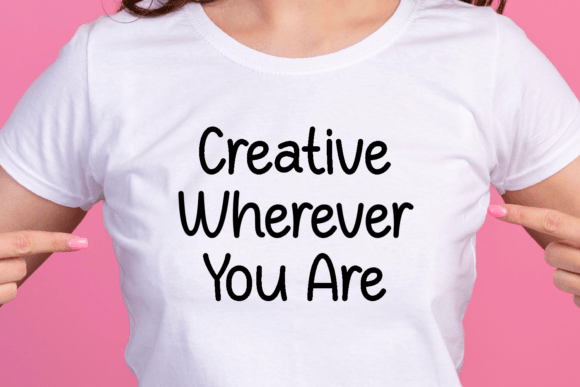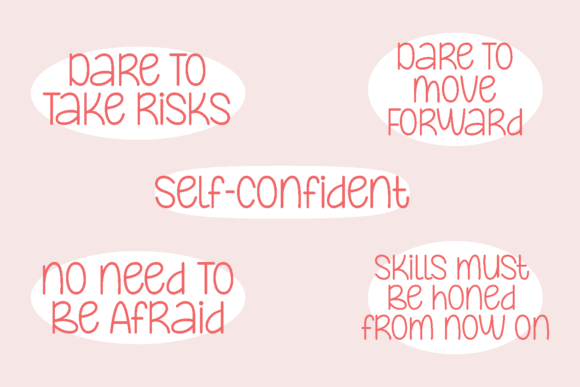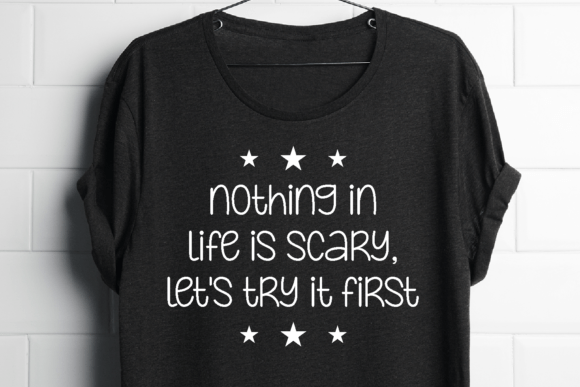
Introduction to Scary Sporty Font
Introducing the beautifully handcrafted and irresistibly delightful font, ideal for injecting fun and warmth into your designs.
This whimsical monoline creation, often likened to the soft, flowing handwriting often found in personal notebooks and planners, oozes charm and playfulness Sporting a thin, single-line style, itโs perfect for fun notes, heart-filled wishes, and lively quotes.
Key Features of Scary Sporty Font
Why Choose Scary Sporty Font?
Scary Sporty Font offers exceptional quality and versatility, making it a valuable addition to your design toolkit. Whether you’re creating for personal projects or commercial use, Scary Sporty Font delivers professional results.